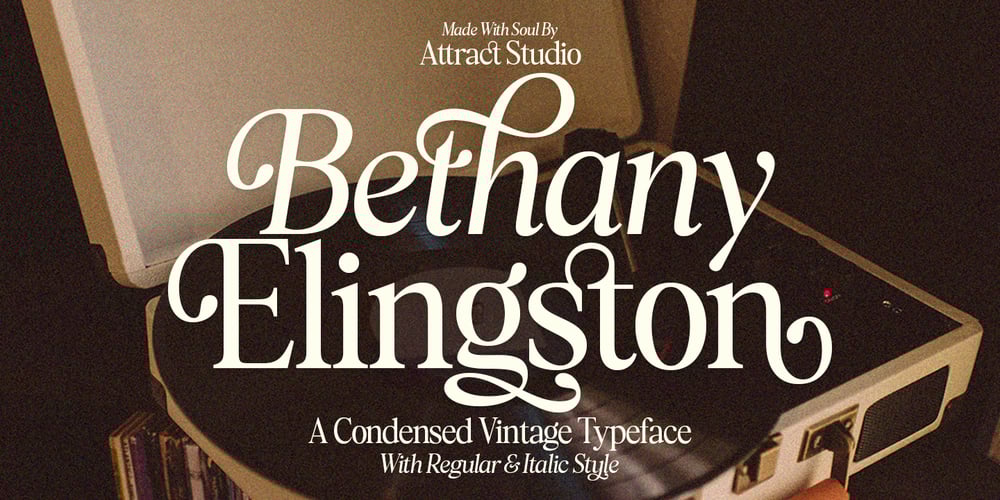
Bethany Elingston
Bethany Elingston font
Bethany Elingston Font Family was designed by Muammar Kadafi and published by Attract Studio. Bethany Elingston contains 2 styles and family package options. Bethany Elingston is a serif font with contrasting characters inspired by old-style serifs and condensed serifs. Has dozens of great Alternatives and Binders to combine in creating Labels, signage, titles, logos and many other creative projects.Including: 2 Weights Alternatives & Ligatures OpenType support Multilingual PUA encoded.